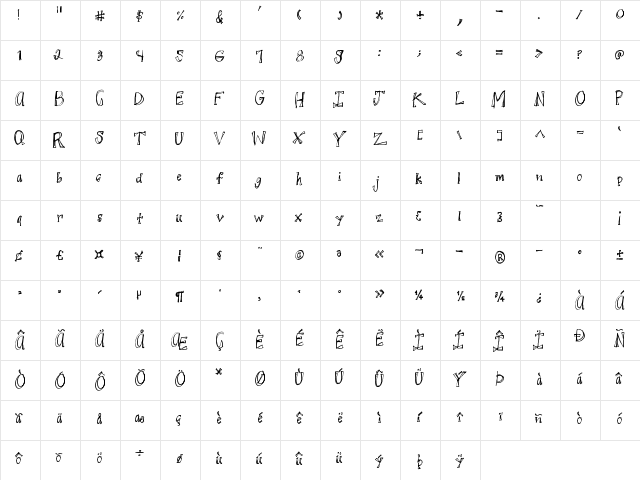
JuicyRags Regular
| Foundry | Xerographer Fonts |
| Designer | Max Infeld - Abigail |
Design Context for JuicyRags Typeface
JuicyRags is a composed and adaptable typeface that performs quietly and consistently across a wide range of design contexts.